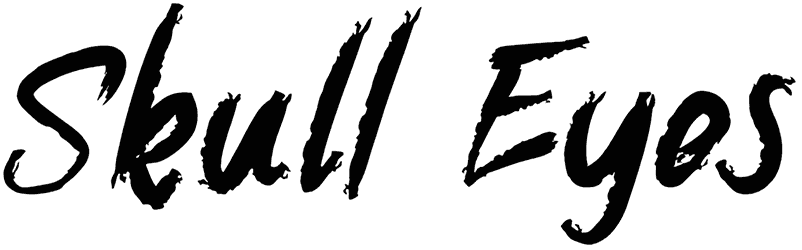
Skull Eyes Font
If you are working on a modern design and want to make it cool and catchy, don’t lose this death font. Skull Eyes, with its unique painted letter style, would be an apt choice for many creative designs. Just try it for your coming design, such as posters, artistic graphics, covers, or the like, and show off your creative skills.